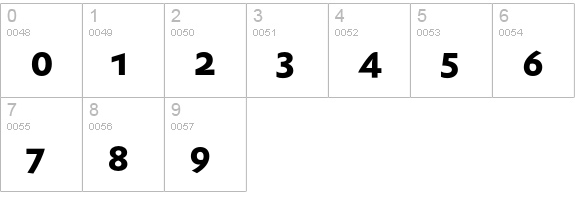
DTLProkyonTCaps Bold is a strong, high-contrast variant in the DTLProkyonTCaps typeface family \xE2\x80\x94 well suited to headlines, attention-grabbing titles, and strong calls-to-action.
The DTLProkyonTCaps Bold font is a modern and stylish typeface that exudes confidence and sophistication. With its bold and eye-catching design, this font is perfect for creating impactful headlines, titles, and branding materials. Its clean lines and sharp edges make it easy to read and stand out on any project. Best of all, the DTLProkyonTCaps Bold font is available for free download at FontsMarket.com. Simply visit the website to access this versatile and dynamic font for your design needs. Whether you're working on a website, poster, logo, or any other project, the DTLProkyonTCaps Bold font will make a bold statement and elevate your design to the next level. Download it today and unleash your creativity with this exceptional font!